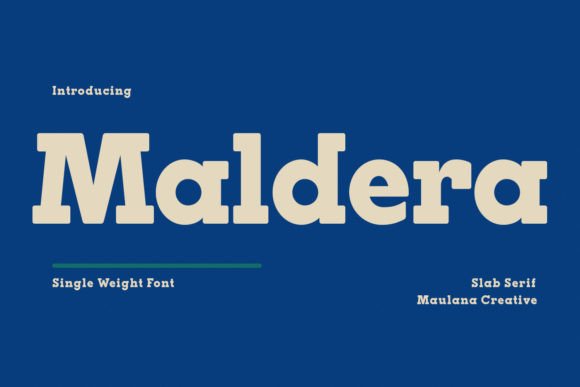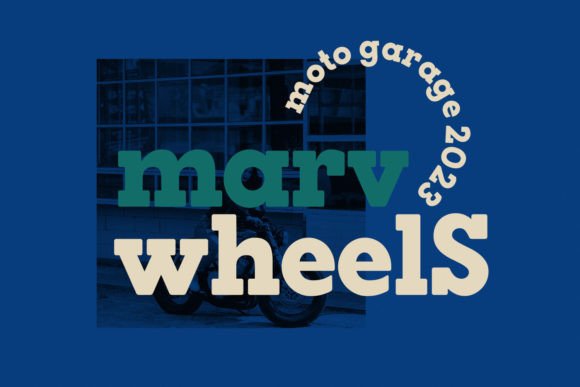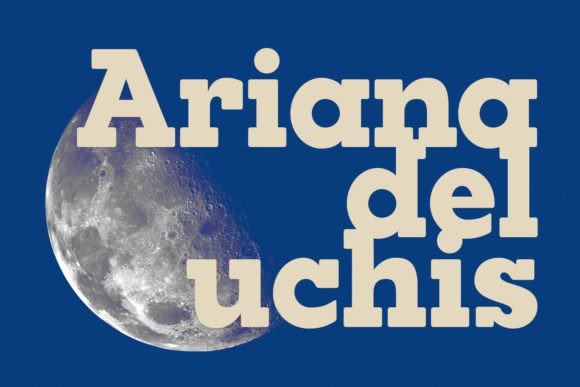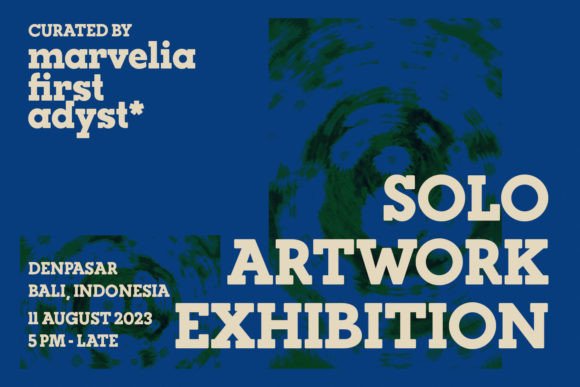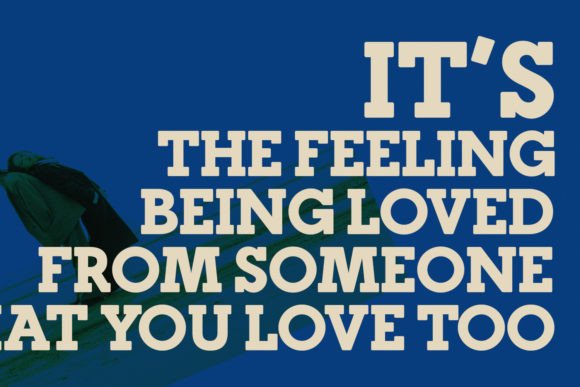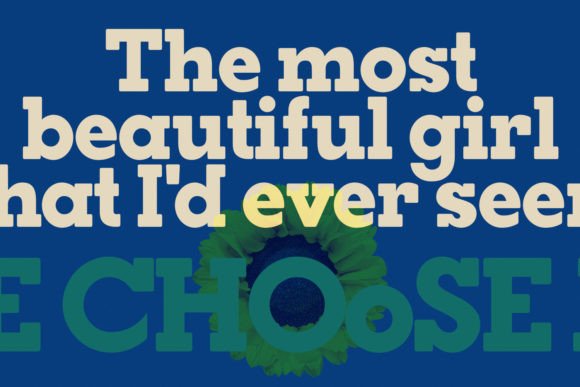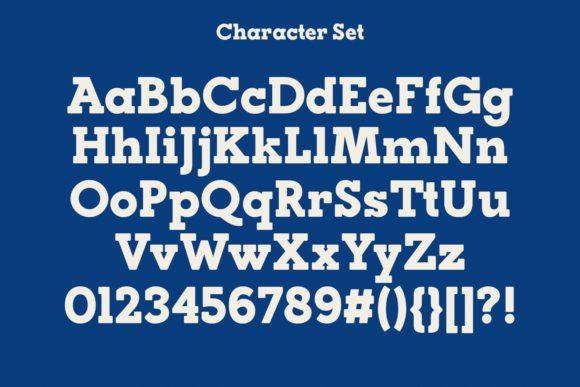
HomeSlab Serif FontsMaldera Slab Serif Fonts Maldera FacebookXPinterestWhatsApp Maldera Fonts 1 of 7 About Maldera is a timeless and bold serif font. Fall in love with its incredibly versatile style and use it to create gorgeous wedding invitations, beautiful stationary art, eye-catching social media posts, and much more! DOWNLOAD NOW People also explored The Blood Font Alessandria Font Realistic Mock-ups on Vintage Background Silver South Font Fugenta Font Arabesque Font Writing Signature Font Minarty Font Backyard 363 0 TagsMaldera Previous articleFox VeteranNext articleFox Excited LEAVE A REPLY Cancel reply Comment: Please enter your comment! Name:* Please enter your name here Email:* You have entered an incorrect email address! Please enter your email address here Website: Save my name, email, and website in this browser for the next time I comment. Personal Use Free Vanity Personal Use Free Read more about this font Budmo Personal Use Free Read more about this font Vogue Font Personal Use Free Read more about this font Happy Garden Personal Use Free Read more about this font BLOG 5 Fonts That Will Dominate Design Trends in 2026 5 Fonts for 2026 That Will Dominate Design Trends Typography plays a critical role in visual communication, and as we look ahead to 2026, it’s... Free vs Paid Fonts: Why Investing in Premium Fonts Is Worth It Using Fonts in Digital Marketing: Tips to Strengthen Your Brand Identity How to Install and Use Fonts on Windows, macOS, and Web Projects